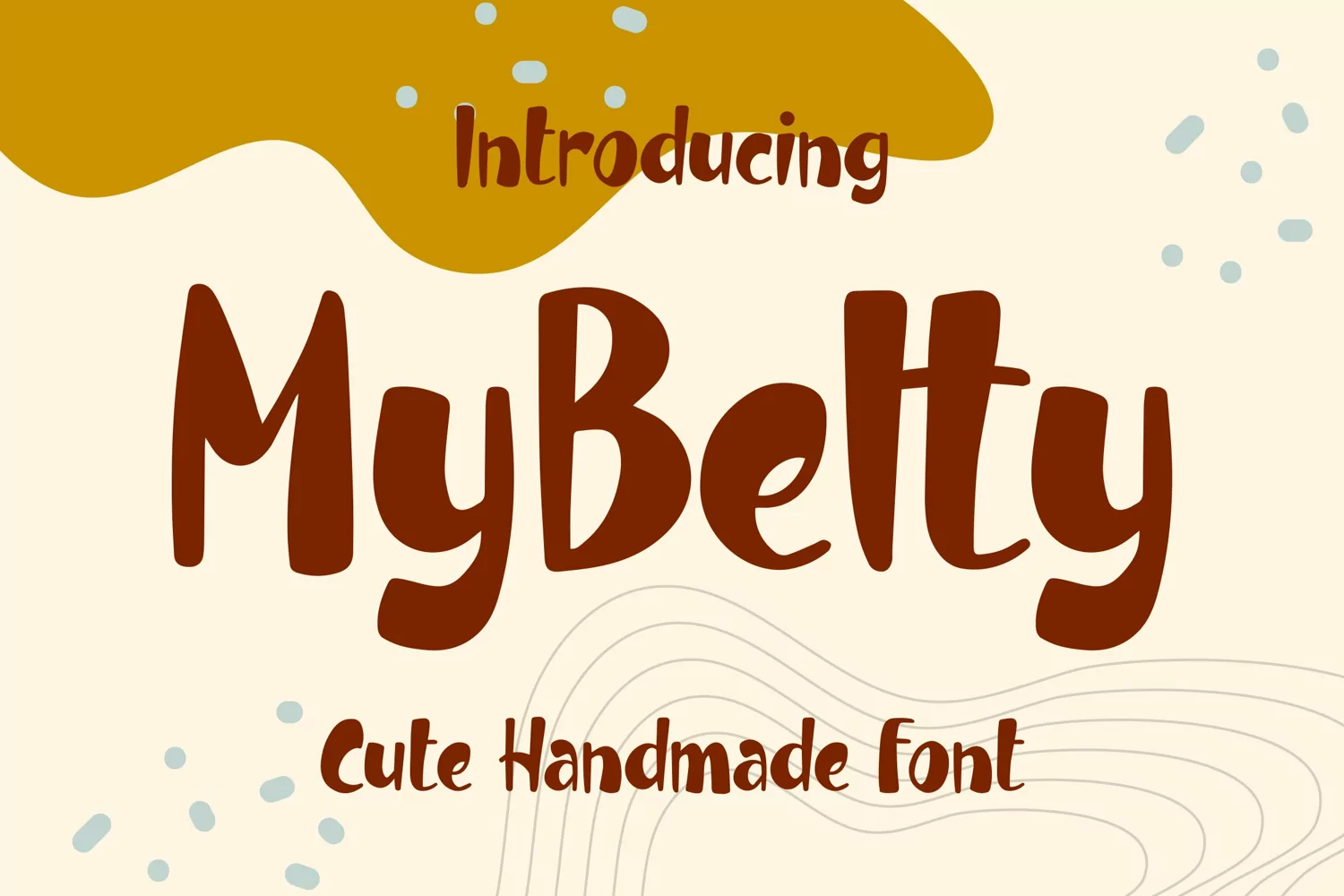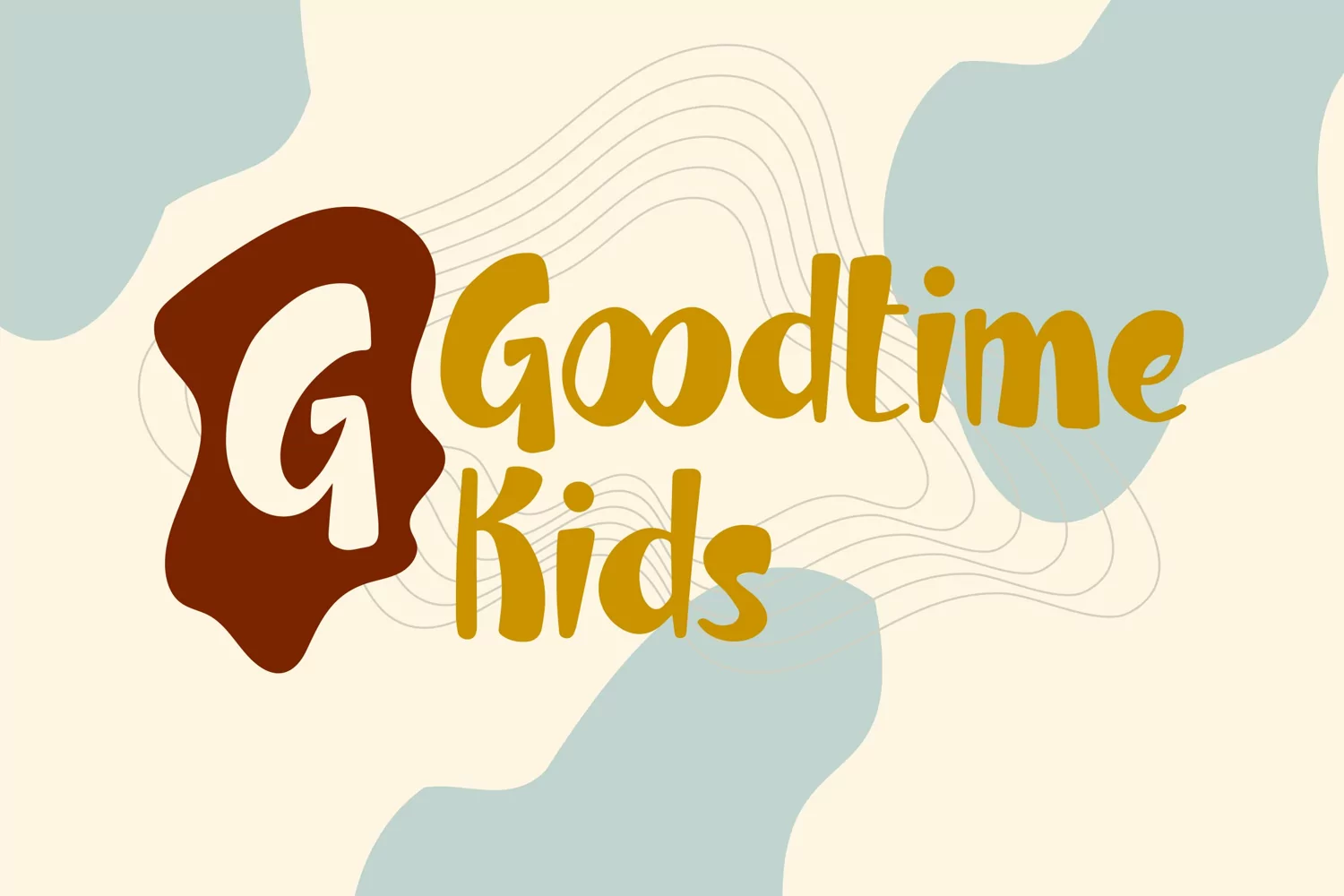
My Betty - Cute Handmade Font that contain lowercase, uppercase, symbol, and also support multi language. There’s a lot ligatures in this font. This Font also comes with ligatures, alternates and many more. this font suitable for fashion, branding, catalog and other design what you want.